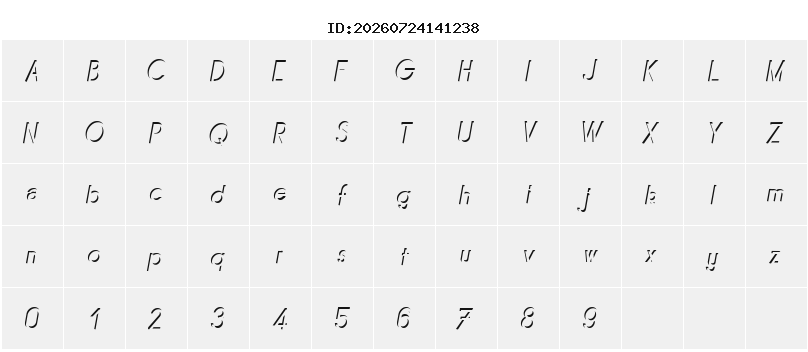
Mirage Preview
• Font Name: Mirage
• Font Style: Italique
• Font ID: Fontographer 4.7 Mirage Italique
• Full Font Name: Mirage Italique
• Version: Fontographer 4.7 30/01/12 FG4M­0000002045
• PostScript Name: MirageItalique
• Character Count: 117
About Mirage.ttf
Mirage.ttf is a modern, elegant sans-serif font designed for ultimate readability and visual harmony. Perfect for branding, headlines, web design, and print materials.